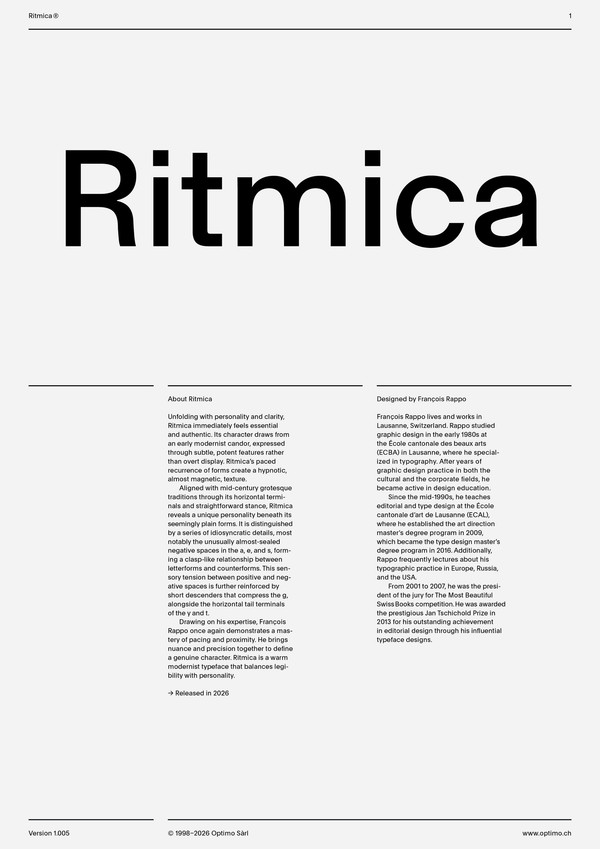
Ritmica Variable
Ritmica
Case Sensitive Forms
All Caps [cpsp]
Case Sensitive Forms [case]
This function formats the text in uppercase and adjusts spacing between all capital letters. It also applies the ‘Case Sensitive Forms’ feature which replaces certain characters with alternates that are better suited for all capital text, especially related to punctuation.
Contextual Alternates
Contextual Alternates [calt]
This feature adapts the position of a glyph after its surrounding context. For instance, a dash placed between two uppercase letters or numbers will be replaced by an uppercase version of the dash, slightly higher. This feature is usually active by default in Adobe applications.
Fractions
With this feature, any numbers separated by a slash will automatically turn into a fraction. To fit in fraction configuration, numerals have been designed smaller and their weights have been adjusted to suit the typeface.
Lowercase math symbols
Stylistic Set 6 [ss06]
This feature activates alternate lowercase positioning of mathematical symbols.
This feature replaces any letter following a numeral with its matching superior letters. French language uses the ordinal indicators such as ‘er’ for 1er premier, while Spanish, Portuguese and Italian require the feminine and masculine ordinals ‘a,’ ‘o’ for 1º, 1ª. Ordinals are designed to match the weight of the typeface.
Slashed Zero
Slashed Zero [zero]
Originally created to avoid the confusion between the ‘0’ and the ‘O’, this feature substitutes all zeros in a selected text by a slashed form of the zero.
Multiply sign
Stylistic Set 20 [ss20]
This feature substitutes the letter “x” into the multiplication sign.
Numerators [numr]
This feature substitutes glyphs with their matching smaller alternates. The numerators are the same glyphs that are used to create fractions, their vertical position remains within the capital letters height. These glyphs are reduced in size and designed slightly heavier to keep them consistent with the rest of the font.
This feature substitutes glyphs with their matching smaller alternates and low position glyphs. The denominators are the same glyphs that are used to create fractions, their vertical position remains within the base line. These glyphs are reduced in size and designed slightly heavier to keep them consistent with the rest of the font.
Superscript/Superiors
This feature substitutes glyphs with their matching smaller alternates which are set slightly above the height of the capital letters. These glyphs are reduced in size and designed slightly heavier to keep them consistent with the rest of the font.
Subscript/Inferiors
Subscript / Inferiors [subs]
This feature substitutes glyphs with their matching smaller alternates which are set slightly below the baseline. These glyphs are reduced in size and designed slightly heavier to keep them consistent with the rest of the font.
Standard Ligatures
Standard Ligatures [liga]
Standard ligatures replaces a sequence of characters with a single ligature glyph, they are designed to improve kerning and readability of certain letter pairs.
Discretionary Ligatures
Discretionary Ligatures [dlig]
This feature activates discretionary ligatures which are specific to the typeface. It applies all other designed ligatures that are not classified as standard ligatures.
Pictograms
Stylistic Set 19 [ss19]
This feature activates a set of pictograms.
Drawing on his expertise, François Rappo once again demonstrates a mastery of pacing and proximity. He brings nuance and precision together to define a genuine character. Ritmica is a warm modernist typeface that balances legibility with personality.